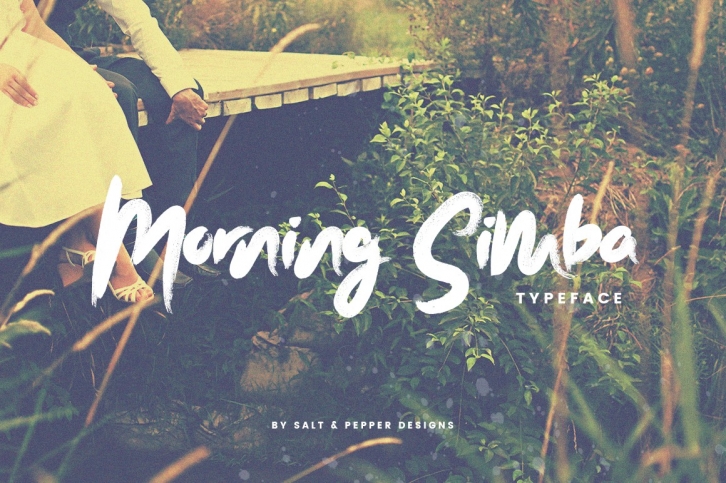
Morning Simba Script is a beautiful font that was designed by Salt and Pepper Designs. It's a great choice for designers and creatives who need such a font. It was released on January 19, 2018 and the file size is 18.67 MB. Morning Simba Script may give a more youthful, expressive and casual look to your project. It is a very beautiful, refined, elegant, and high-quality font.